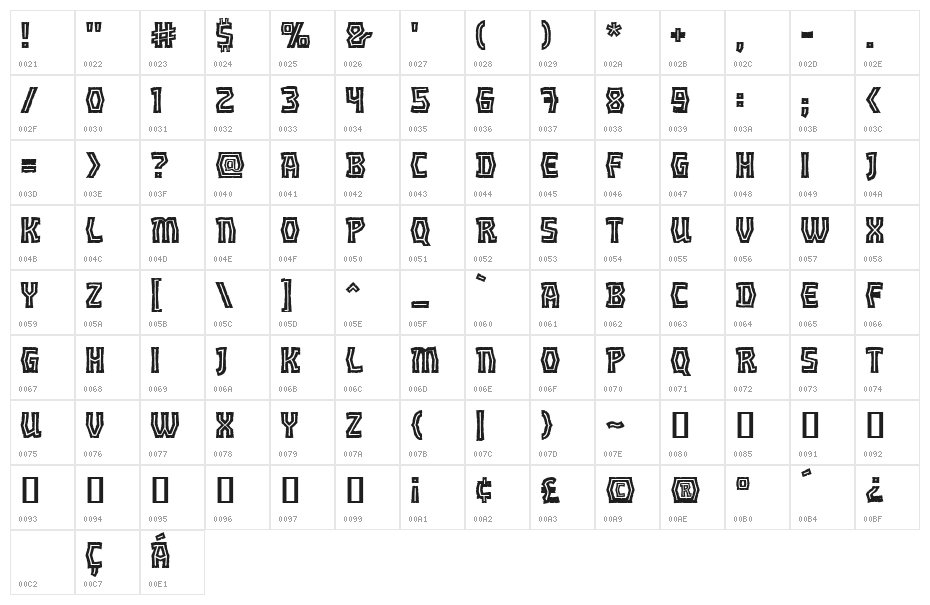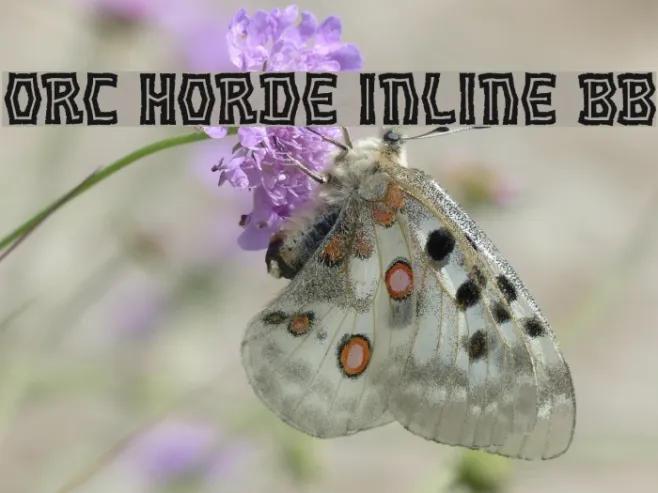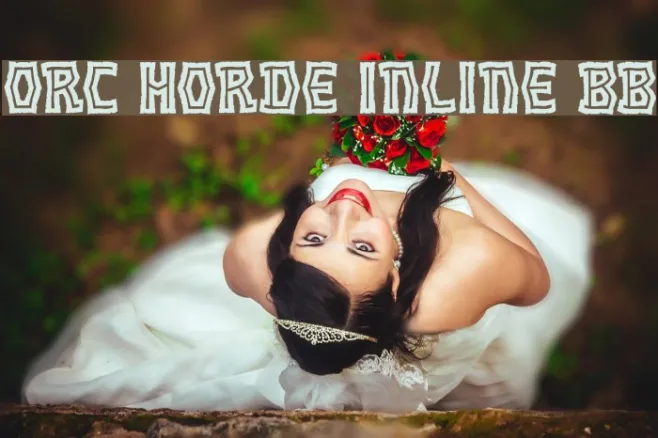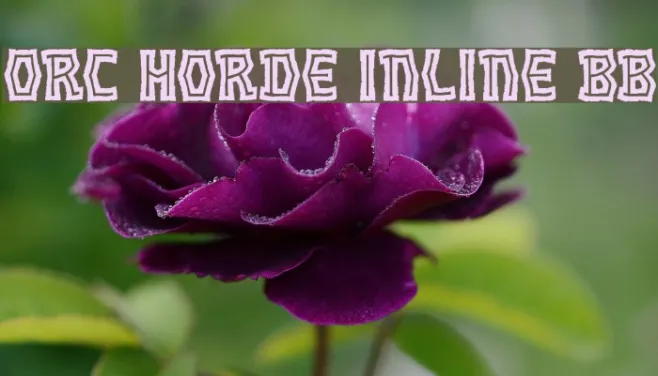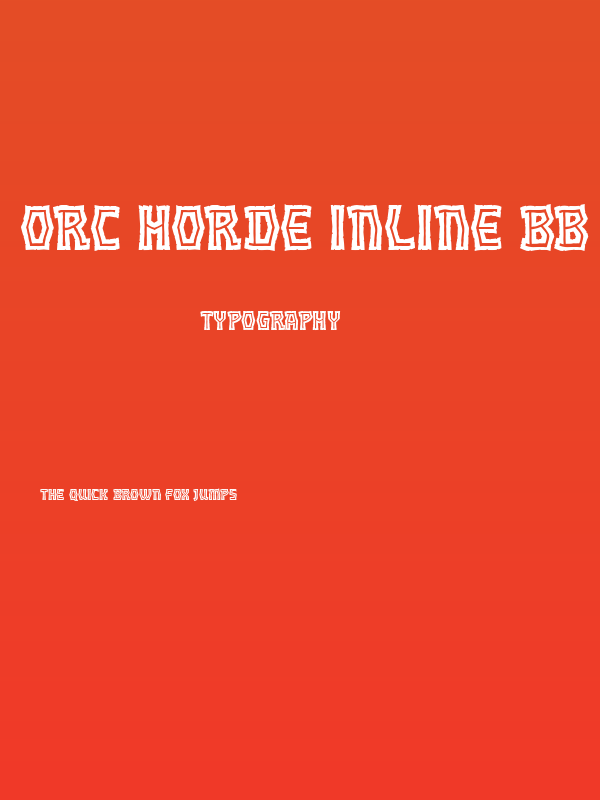
Orc Horde Inline BB Font
Orc Horde Inline BB Description
This font features a bold, rugged design with an inline style that gives it a unique, three-dimensional appearance. The characters have a rough, hand-drawn quality, with uneven edges and a slightly distressed look. The uppercase and lowercase letters maintain a consistent style, with thick strokes and a strong presence. The numbers and special characters are equally bold, making them stand out. This font is ideal for projects that require a strong, impactful visual element, such as posters, banners, or titles. Its distinctive style is reminiscent of fantasy or adventure themes, making it suitable for creative and playful designs.
| Proposed Projects | Ideal for fantasy-themed posters, adventure game titles, or creative banners. |